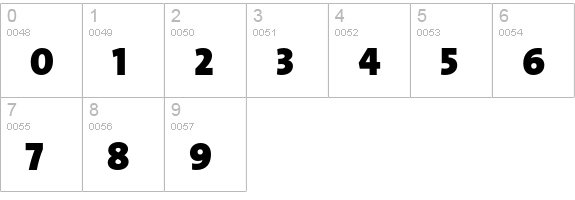
TheSans Black Caps is a maximum-weight, dramatic variant in the TheSans typeface family \xE2\x80\x94 well suited to maximum-impact headlines, posters, and packaging.
TheSans Black Caps font is a bold and powerful typeface that exudes elegance and sophistication. With its clean and geometric shapes, this font is perfect for creating impactful headlines, logos, and branding materials. The bold and uppercase letters command attention and make a statement, while the sans-serif design adds a modern and contemporary touch. TheSans Black Caps font is versatile and can be used in a variety of design projects, from print to digital. Its strong presence ensures legibility even at smaller sizes, making it suitable for body text as well. Whether you are designing a poster, a magazine layout, or a website, this font will add a touch of professionalism and style to your project. What makes TheSans Black Caps font even more attractive is that it is freely available to download at FontsMarket.com. This means that you can easily access and use this font without any restrictions. Whether you are a professional designer or a casual user, you can take advantage of this high-quality font for free. Don't miss out on the opportunity to enhance your designs with TheSans Black Caps font. Download it now from FontsMarket.com and unleash your creativity with this versatile and stunning typeface.